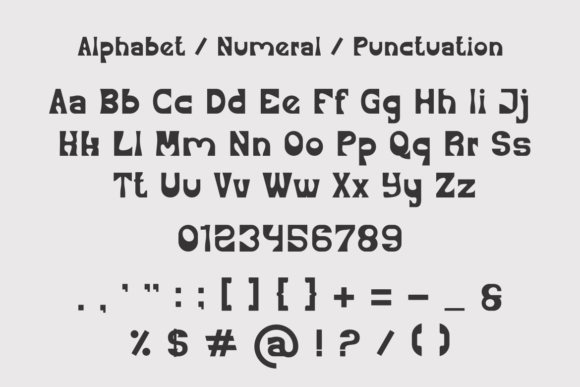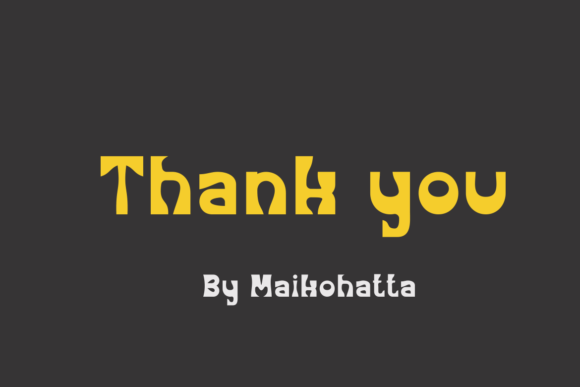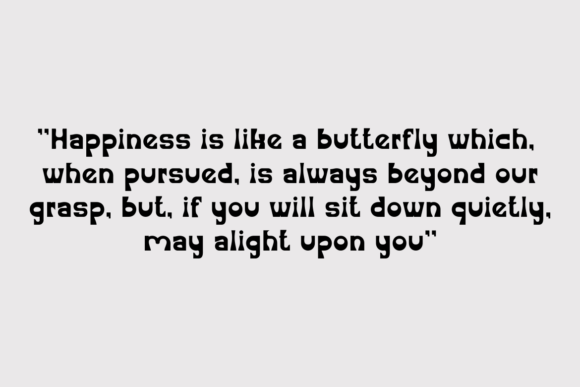
Bilonai Font: Elevate Your Designs with a Modern Decorative Touch
In the world of typography, fonts play a crucial role in conveying the message and aesthetic of a brand. For designers and crafters looking for a modern decorative font that exudes boldness and authenticity, Bilonai Font is an excellent choice. This high-quality font is designed to make a statement, making it perfect for various branding projects, including logos, t-shirt printing, esports, and more.
What Makes Bilonai Font Stand Out?
Bilonai Font boasts a unique and captivating design that sets it apart from other fonts. Its modern decorative style is characterized by bold lines, authentic curves, and a touch of sophistication. This font is not just a collection of letters; it’s an artistic expression that can elevate your designs to new heights. Whether you’re working on a logo, a t-shirt design, or an esports project, Bilonai Font is sure to make a lasting impression.
Key Features of Bilonai Font
- Modern Decorative Style: Bilonai Font features a contemporary design that’s perfect for brands looking to make a statement.
- Bold and Authentic: The font’s bold lines and authentic curves give it a unique and captivating look.
- High-Quality: Bilonai Font is designed to deliver exceptional results, making it suitable for various applications, including print and digital media.
- Versatile: This font can be used for a wide range of projects, from logos and t-shirt printing to esports and more.
Use Cases for Bilonai Font
Bilonai Font is an incredibly versatile font that can be used in various design projects. Here are some examples:
- Logo Design: Create a bold and memorable logo that represents your brand’s personality and values.
- T-Shirt Printing: Design eye-catching t-shirts that stand out from the crowd with Bilonai Font.
- Esports: Give your esports team or project a professional and modern look with this font.
- Branding and Advertising: Use Bilonai Font to create engaging and effective branding and advertising materials.
Why Choose Bilonai Font?
With so many fonts available, why choose Bilonai Font? Here are a few reasons:
- Unique Design: Bilonai Font offers a distinctive design that will set your projects apart from others.
- High-Quality: This font is designed to deliver exceptional results, ensuring that your projects look professional and polished.
In conclusion, Bilonai Font is an exceptional modern decorative font that’s perfect for designers and crafters looking to add a bold and authentic touch to their projects. With its unique design, high-quality, and versatility, this font is sure to become a staple in your design toolkit. Whether you’re working on a logo, t-shirt design, esports project, or any other branding project, Bilonai Font is an excellent choice.